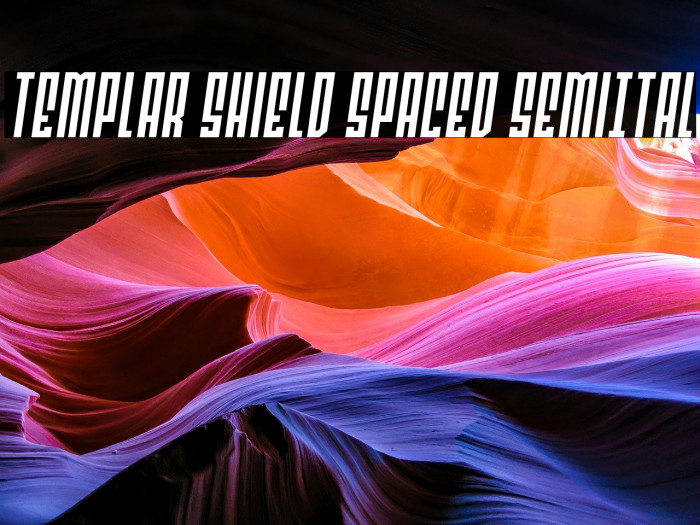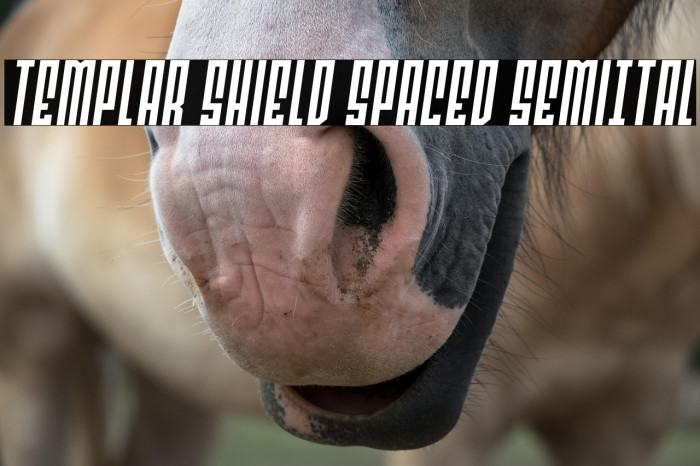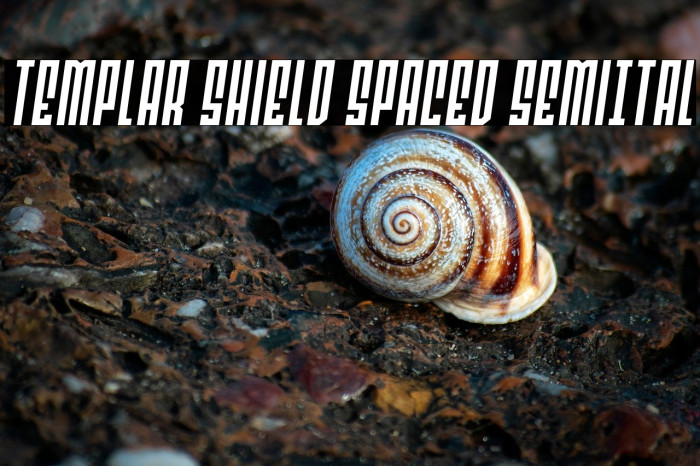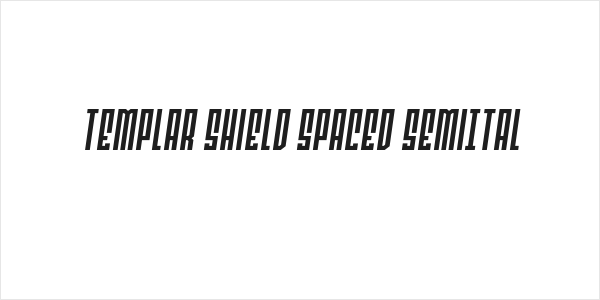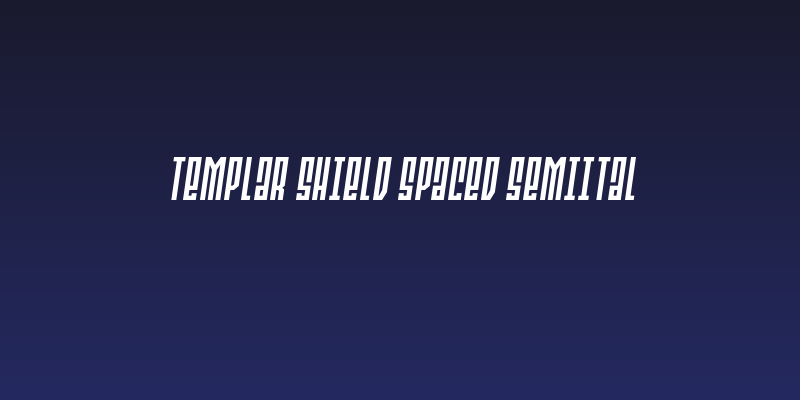
Templar Shield Spaced SemiItal Font
Templar Shield Spaced SemiItal Description
This font features a bold and angular design with a distinct slant, giving it a dynamic and aggressive appearance. The characters are tall and narrow, with sharp edges and a futuristic feel. The uppercase and lowercase letters maintain a consistent style, emphasizing verticality and sharpness. The numbers and special characters are equally stylized, fitting seamlessly with the overall aesthetic. This font's unique style makes it stand out, ideal for projects that require a modern and edgy look.
| Proposed Projects | Ideal for sports branding, video game titles, sci-fi movie posters, and edgy graphic design projects. |